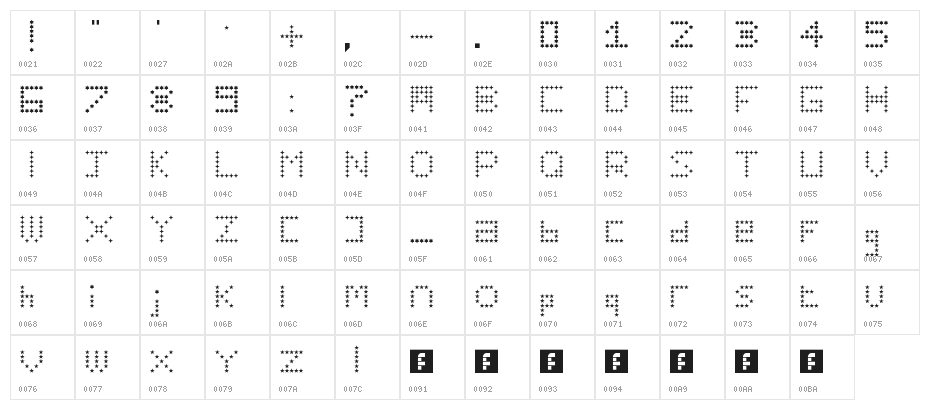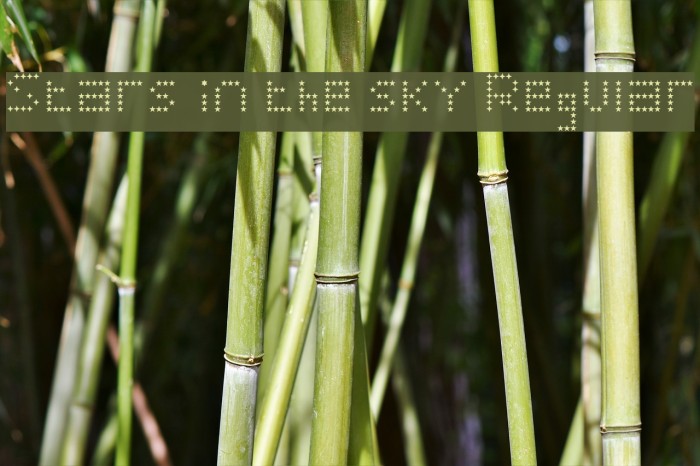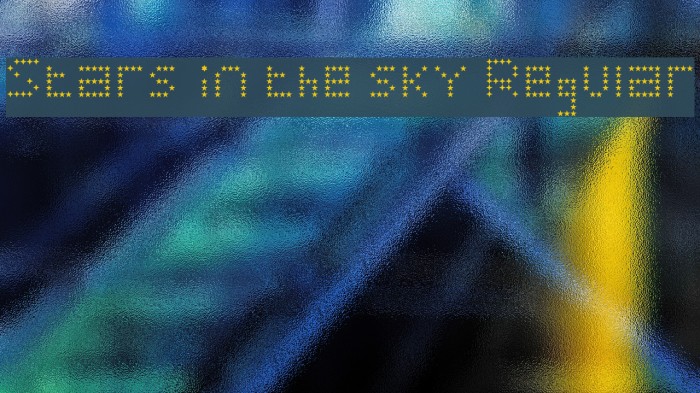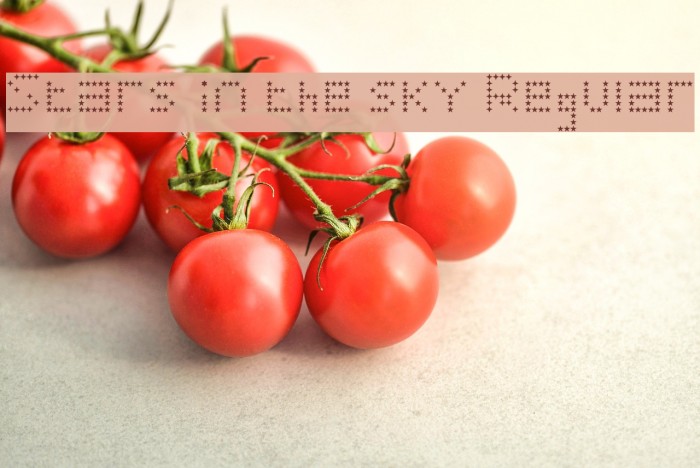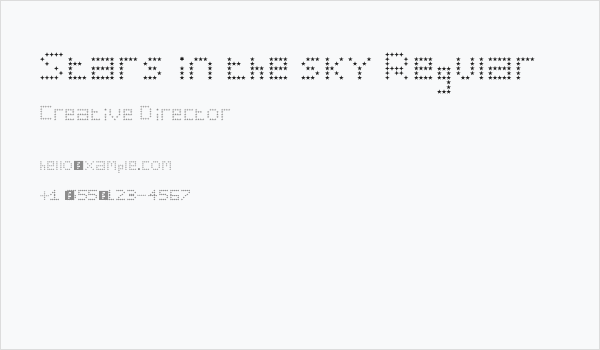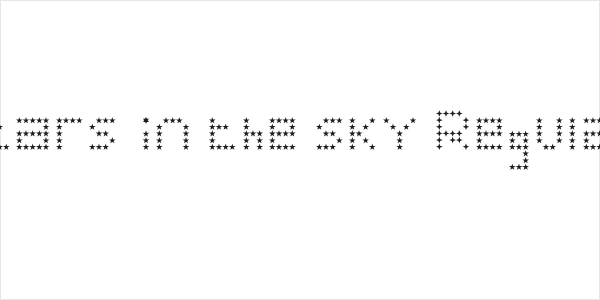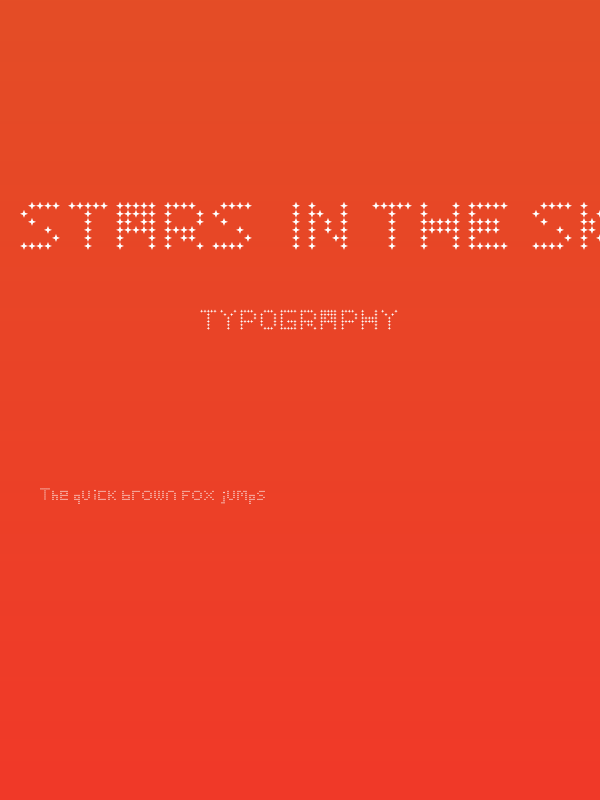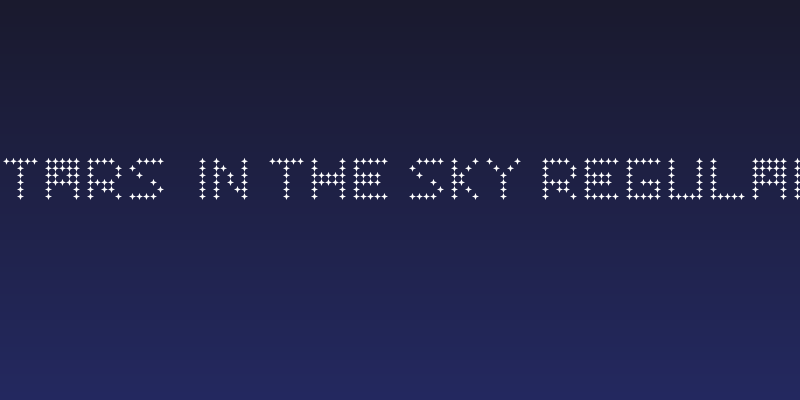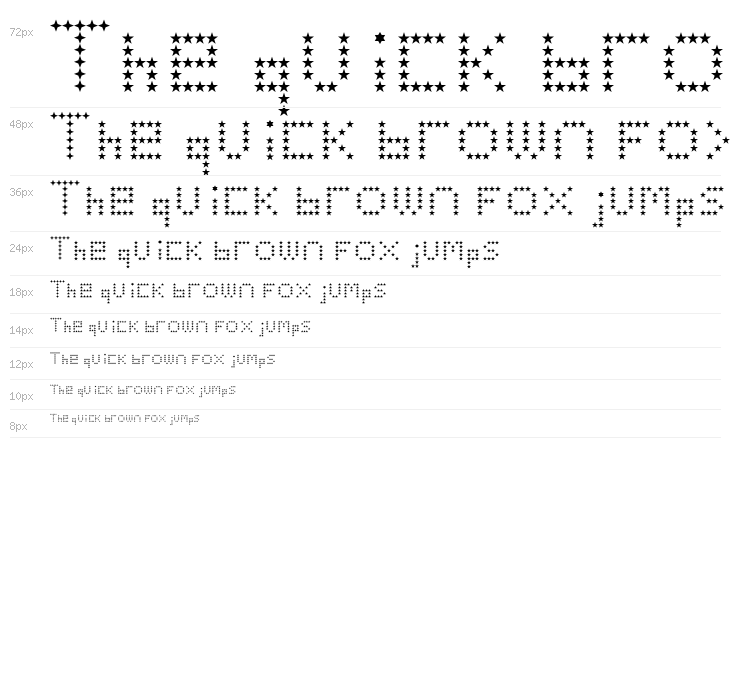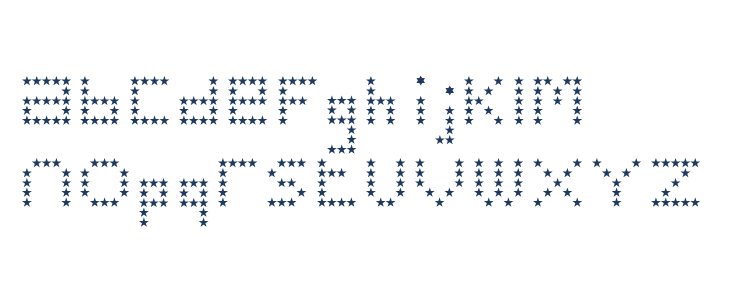
Stars in the sky Regular Font
Stars in the sky Regular Description
This font features characters composed entirely of small star shapes, creating a whimsical and playful appearance. The design is consistent across uppercase and lowercase letters, as well as numbers and special characters, maintaining a uniform look. Each character is formed by arranging stars in a grid-like pattern, giving it a pixelated effect. The font's unique style makes it stand out, ideal for creative and decorative purposes. The spacing between characters is normal, allowing for clear readability while maintaining its decorative appeal.